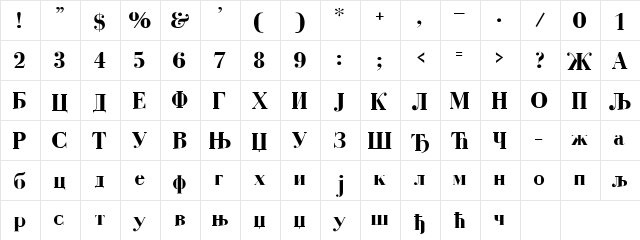
BodoniCir Bold Font Preview
BodoniCir Bold
BodoniCir Bold Font Details
Design Context for BodoniCir Typeface
BodoniCir offers clean, dependable letterforms without strong stylistic allegiance, making it a practical choice for designers who need flexibility. The heavy weight commands attention and anchors typographic hierarchies.